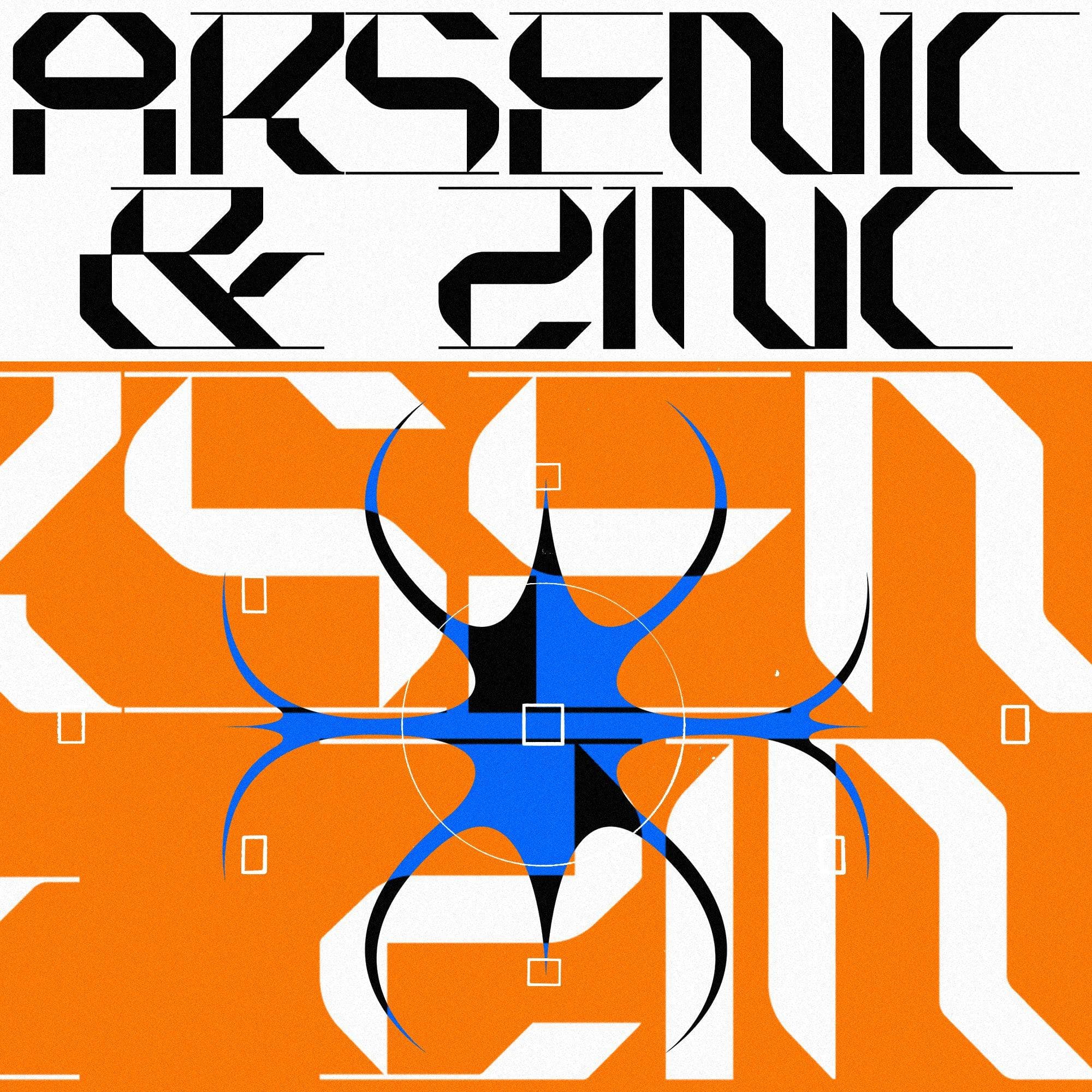
<p>Sharp and robust, "Arsenic & Zinc" is a display font suitable for your projects with an industrial, acid or futuristic look. Large and small letters, symbols and numbers designed to make your posters and your brand unique and iconic.<br>- Supplied in .otf format</p>